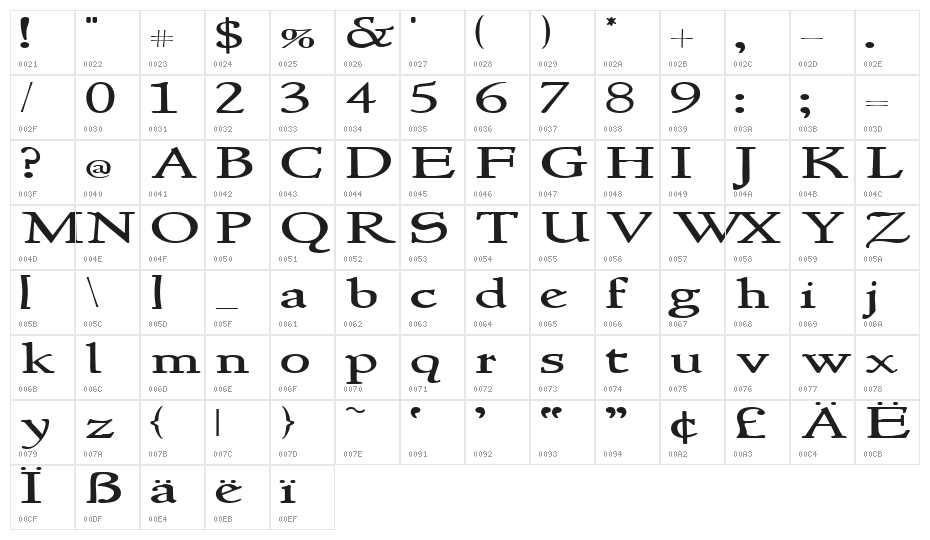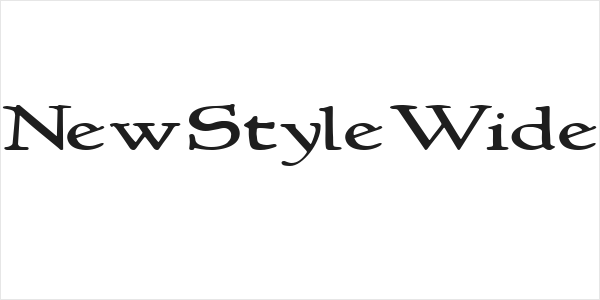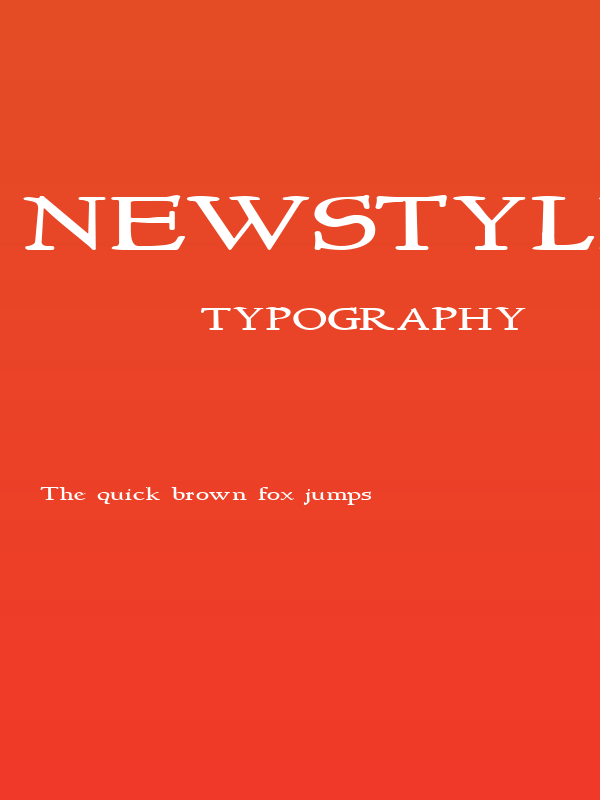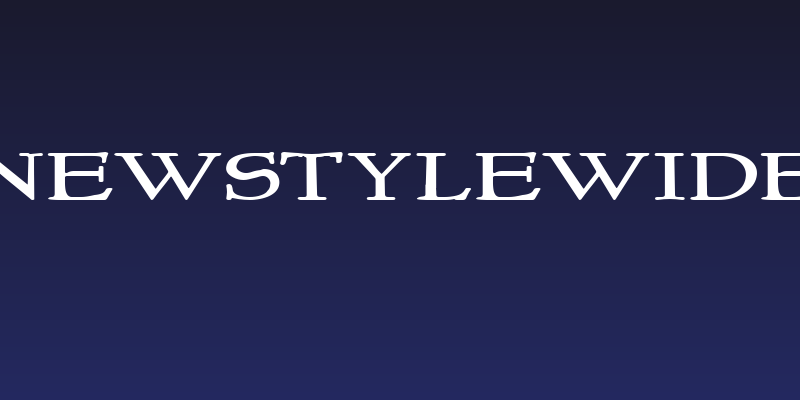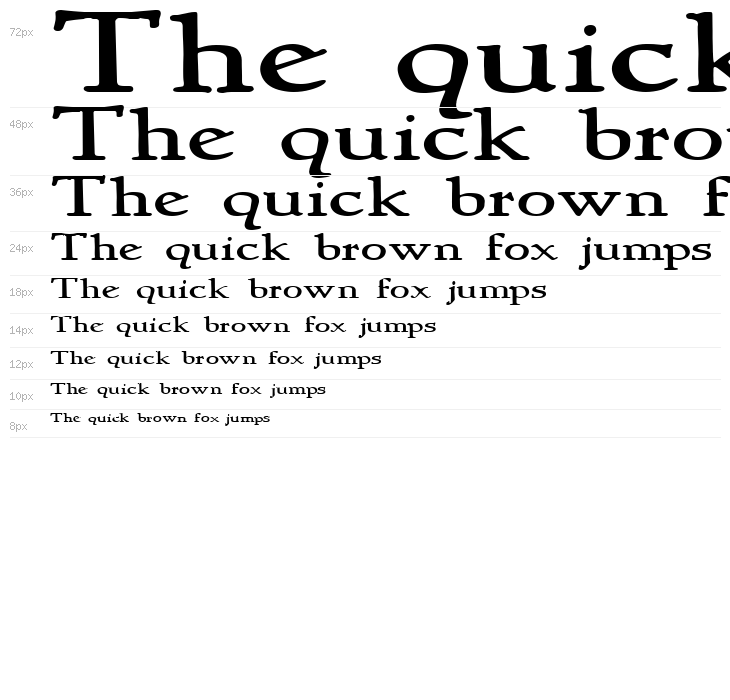
NewStyleWide Font
NewStyleWide Description
This font features a wide, expansive design with clean lines and a modern aesthetic. The characters are uniformly spaced, creating a balanced and harmonious look. The uppercase letters are bold and commanding, while the lowercase letters maintain a consistent width, enhancing readability. The numerals are clear and distinct, making them suitable for various applications. Special characters are well-integrated, maintaining the overall style of the font. This typeface is versatile, offering a contemporary feel that can be adapted to numerous design projects.
| Proposed Projects | Ideal for branding, advertising, and digital media projects that require a modern and bold appearance. |